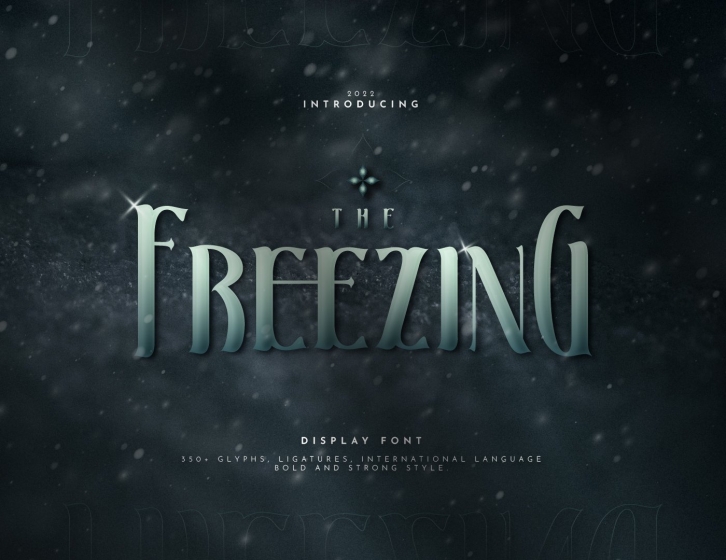
The Freezing Display FONT Download
The FreezinG, bold, strong, gothic serif display font. the sharp characteristic in every corner of the serifs that represents this font is bold. perfect for titles in movie posters that will make that design interesting with this font. can be used in logos, headers, brands, websites, and others. comes with full character letters, the uppercase and lowercase are the same, but the difference is the height. also equipped with numbers, symbols, punctuations, and of course international language support. don't forget the ligature which will make the font more creative and very different from other fonts. Easily accessible in programs such as photoshop, illustrator, word and more.
• OpenType Features (Stylistic Set)